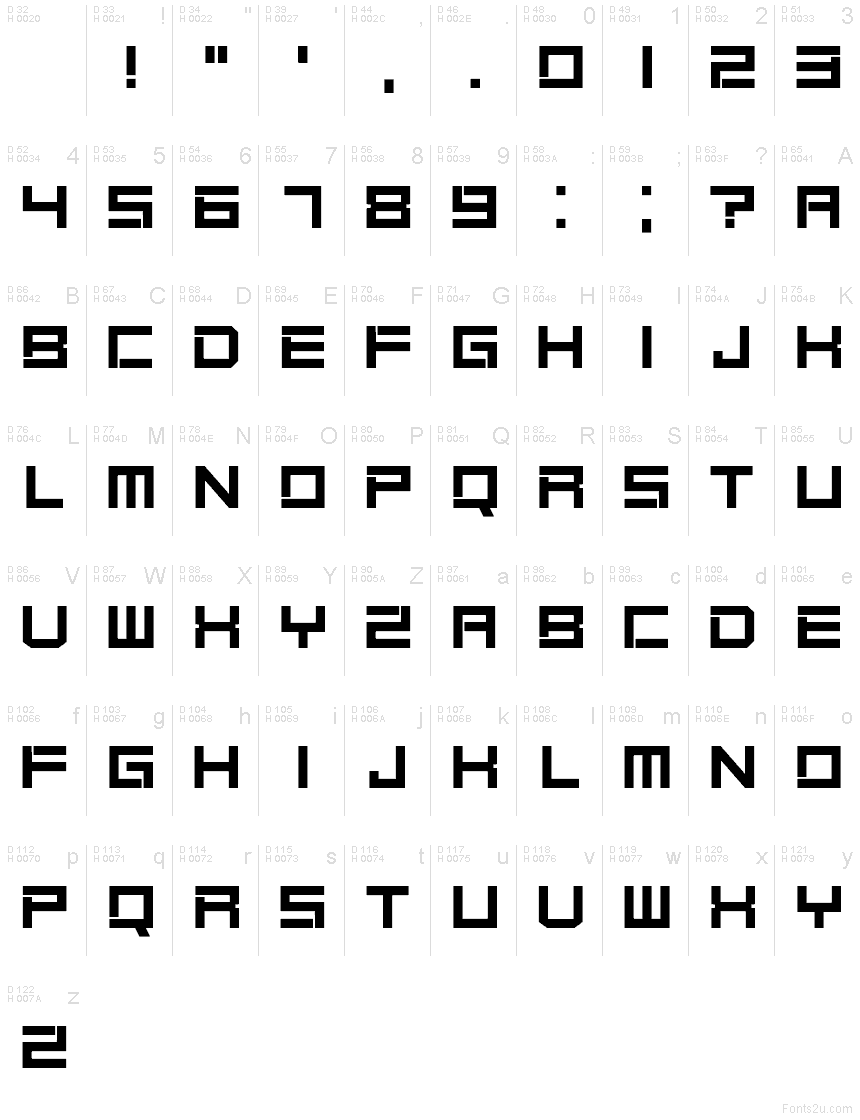
Sarno Regular
Sarno font by Vladimir Nikolic is a free techno display font with sleek, geometric designs that embody a modern and futuristic look. Its expanded width gives it a bold presence, making it perfect for projects aiming for an architectural influence or minimalistic appeal.
Ideal use cases include magazine covers, gym posters in environments like cafeterias and restaurants; in web design on homepages, posting banners online; and writing books titles (sports, yoga-related ones).